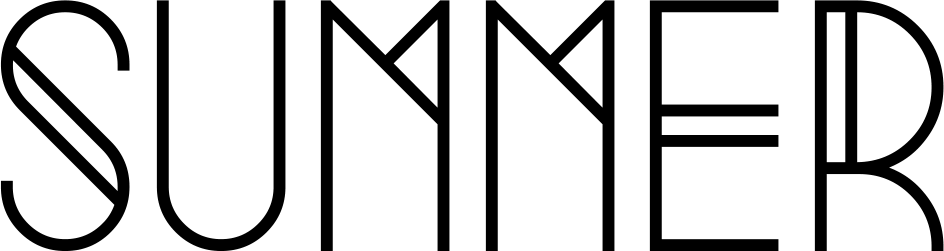
Summer Font
Summer gets you thinking of words like clean-cut, sharp, and cool when you first see it. It comes from the Art Deco font family and that explains why it’s those words!
Summer is embellished with lines and has thin, curved characters that look bright. It lacks the lowercase letters and general punctuation yet it’s in the lead! Use it in logotypes, branding, beer packaging, jewelry design, and more to lead the eyes towards your artwork!